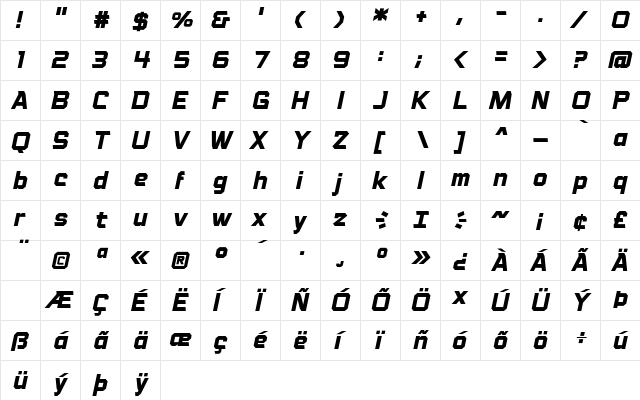
Voice Activated BB Bold Italic
| Foundry | Nate Piekos. Blambot.com |
| Designer | Nate Piekos |
Design Context for Voice Activated BB Typeface
Voice Activated BB is a composed and adaptable typeface that performs quietly and consistently across a wide range of design contexts. The slanted form adds forward momentum and visual energy. The heavy weight commands attention and anchors typographic hierarchies.
Pro Tip: Try Voice Activated BB for annotation and caption copy alongside an upright companion — the contrast in angle creates a dynamic but ordered typographic system.